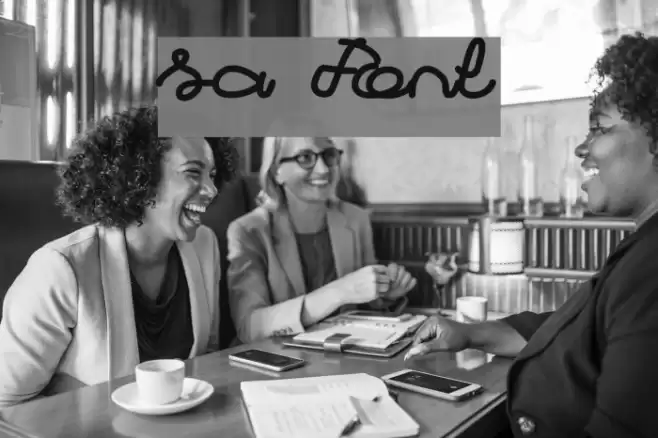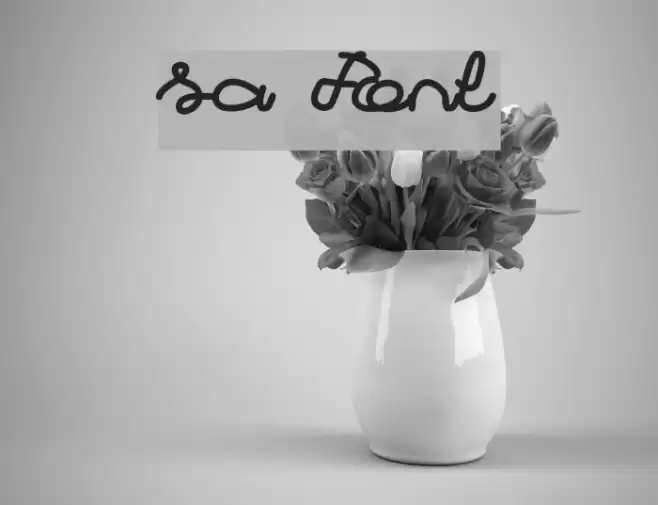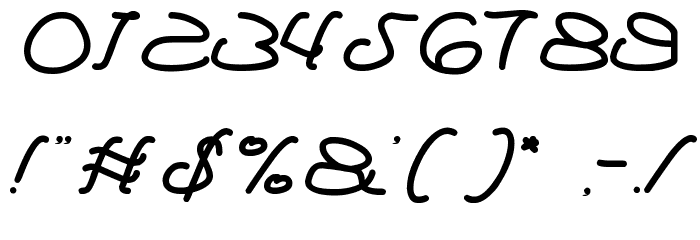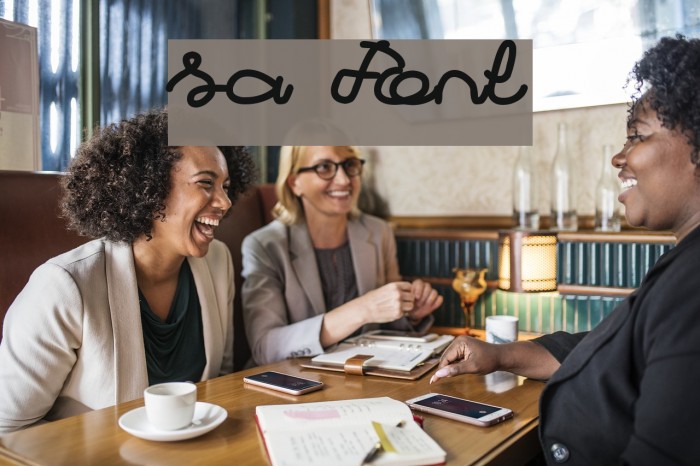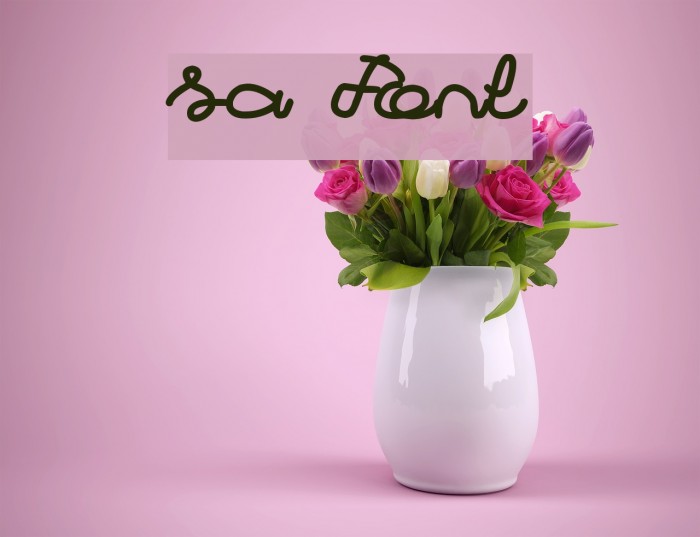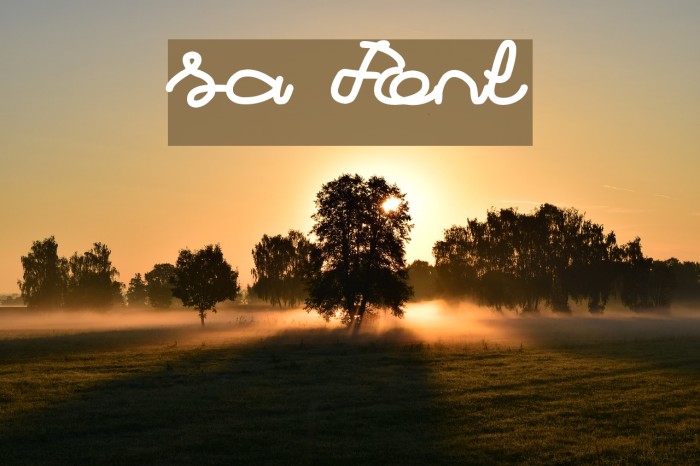
sa Font
sa Description
This font features a playful and casual script style with a handwritten appearance. The characters are interconnected, creating a fluid and continuous flow. The strokes are moderately thick, providing a bold presence while maintaining readability. The uppercase letters are slightly larger than the lowercase, with a consistent slant that adds to the dynamic feel. Numbers and special characters are designed to match the overall style, ensuring uniformity across all glyphs. This font is ideal for projects that require a personal touch or a friendly, approachable vibe.
A playful, handwritten script font with interconnected characters and a bold presence from Uncategorized fonts.
- Proposed Projects: Greeting cards, invitations, personal branding, and social media graphics.
- Overall Style: Casual, Playful
- Use Case: Headlines, Logos, Invitations